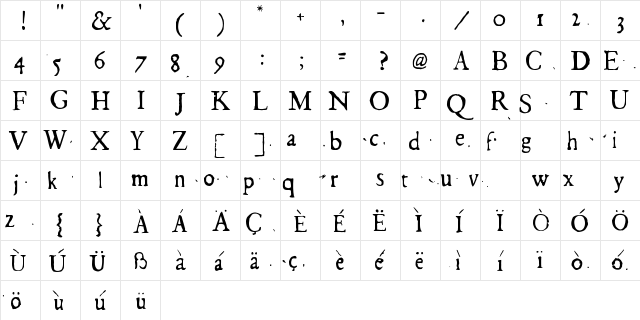
Georg Medium Font Preview
Georg Medium
Design Context for Georg Typeface
Georg takes a measured approach to typography — its balanced proportions and neutral character make it a reliable workhorse for both digital and print work.